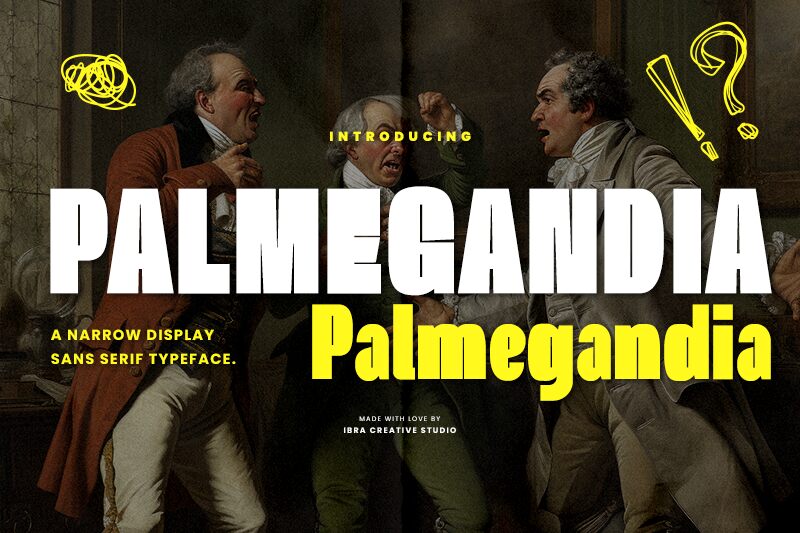
Palmegandia font by Ibra Creative Studio displays extreme visual diversity and adaptability while still keeping technical professionalism. Steps have been made to ensure this high level of versatility which makes the font able to blend in with almost all kinds of visual work. This is a tall, clean, modern sans serif best known for its cool seamless writing in both text and display sizes. The condensed style of the letters allows the text to be more legible and fits perfectly in tiny space constraints.
Use it for book and magazine covers, posters, general advertising, and app design. Palmegandia is also an additional choice for your website font, headers, and gaming. The font comes in a regular weight suitable for all your uses.